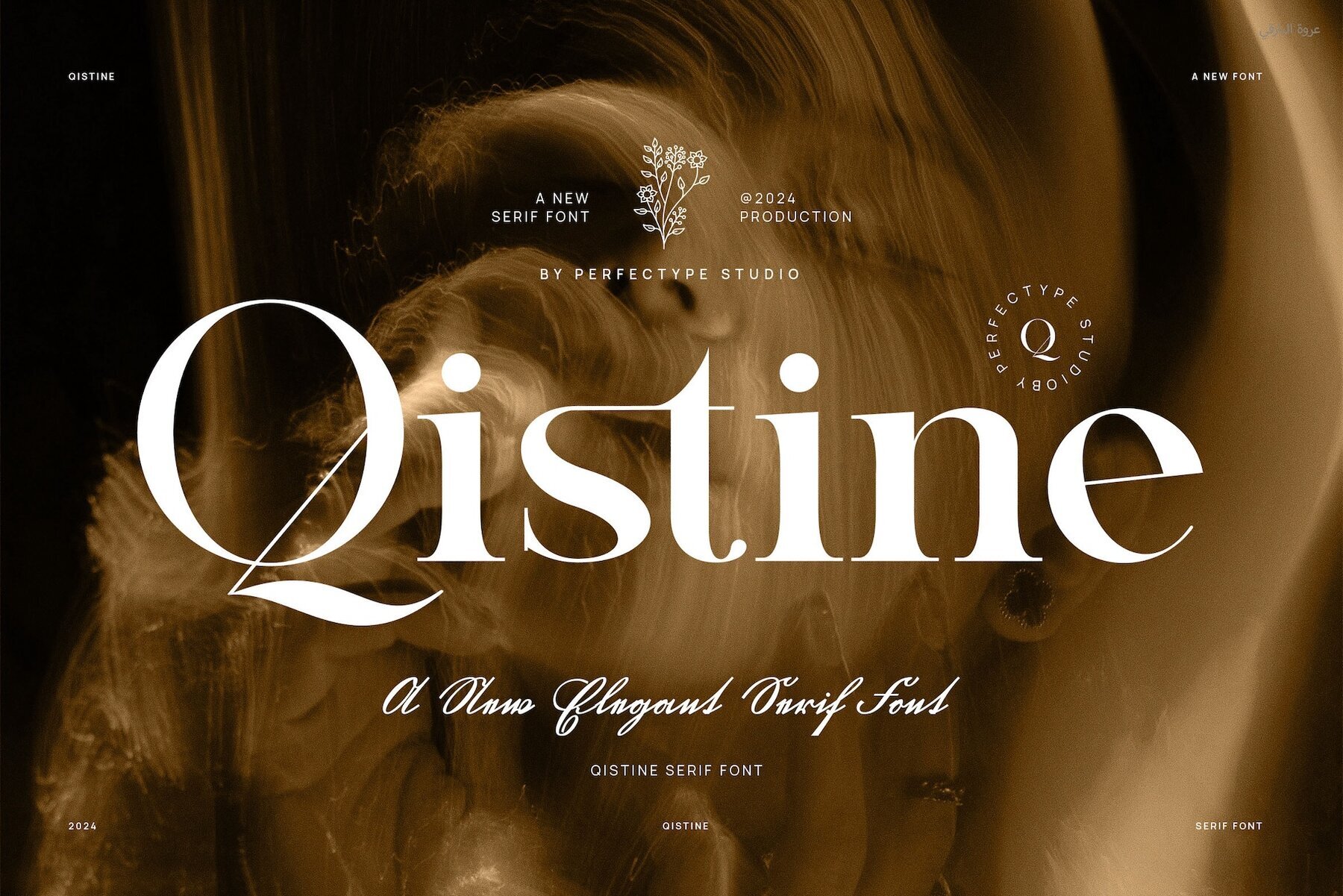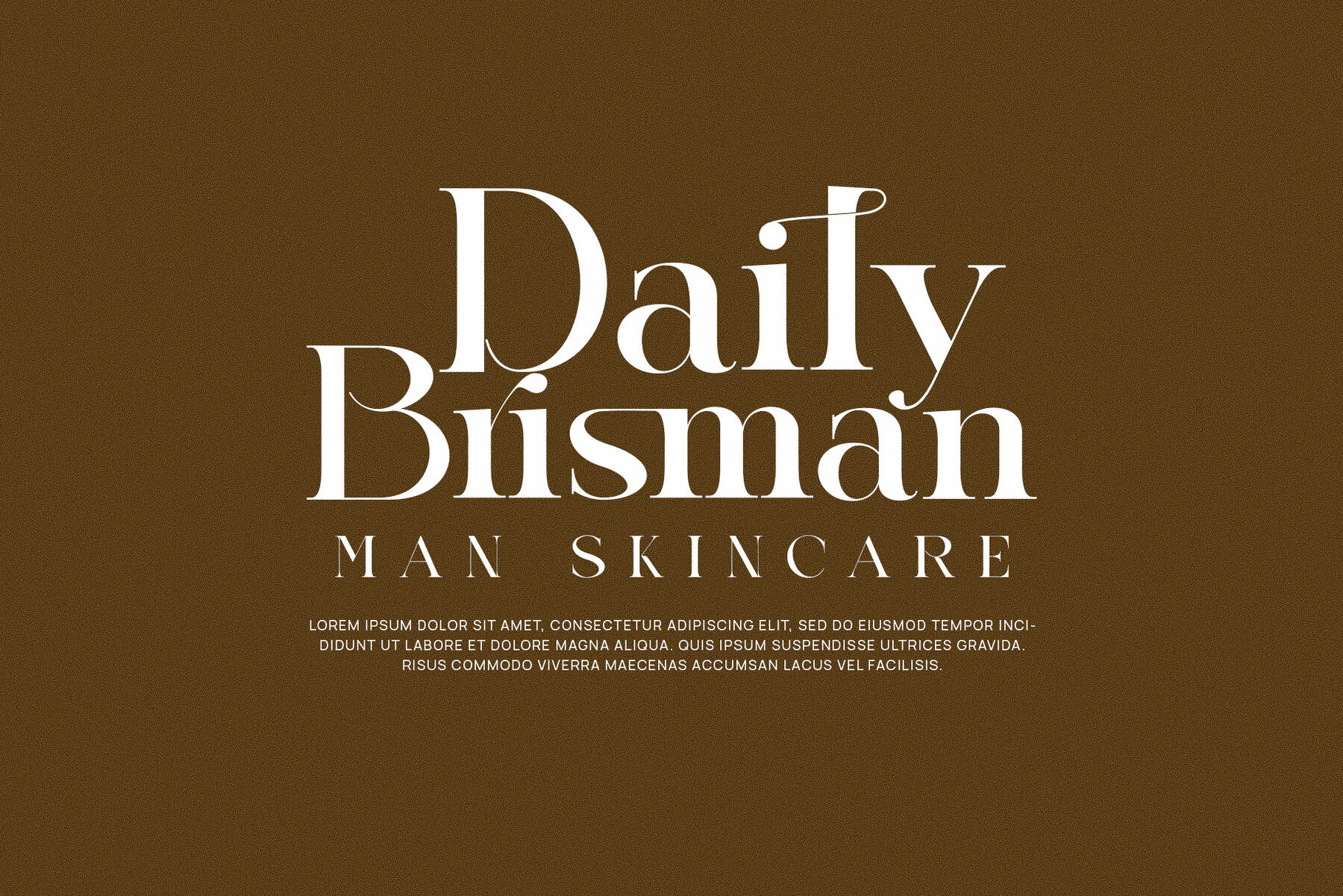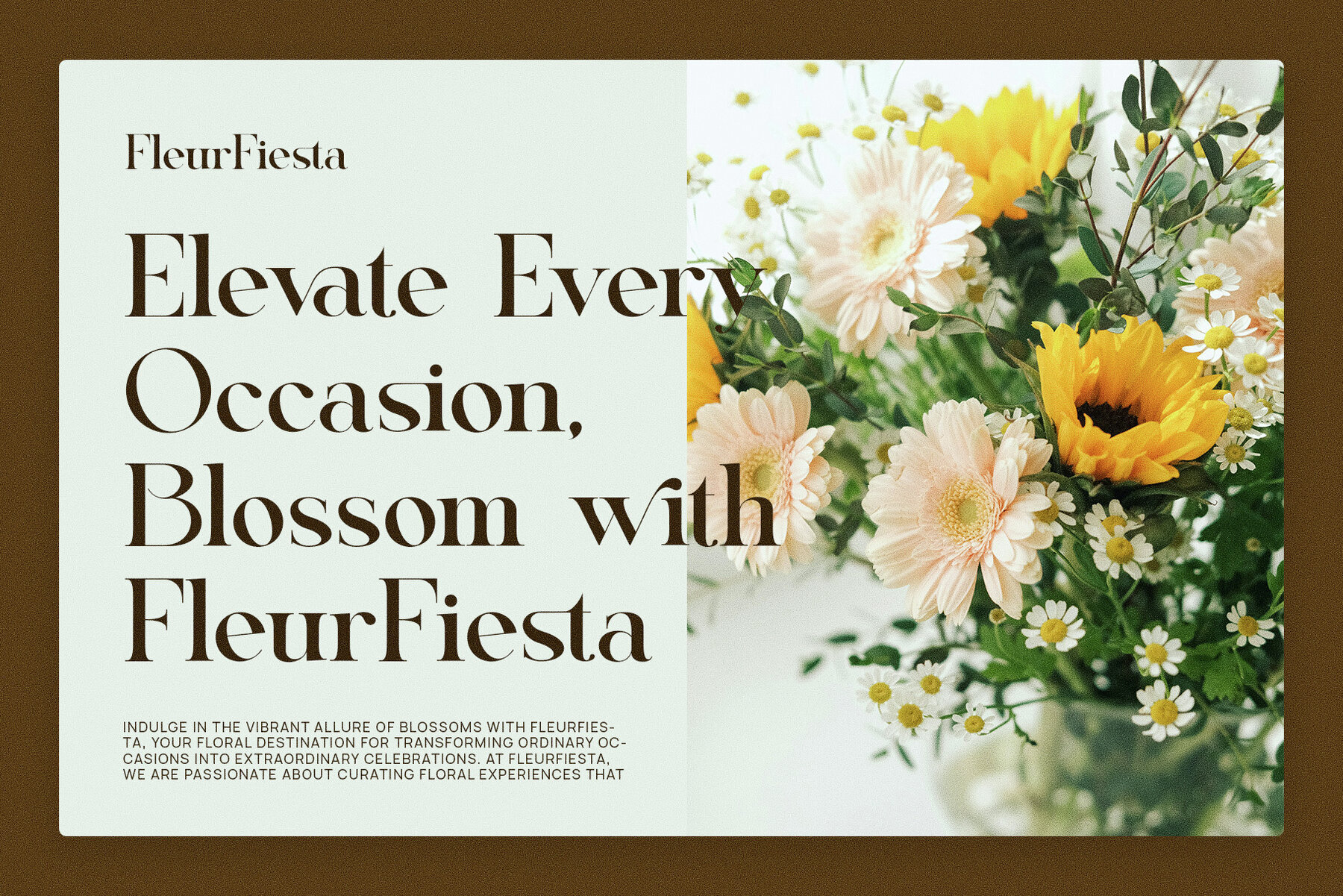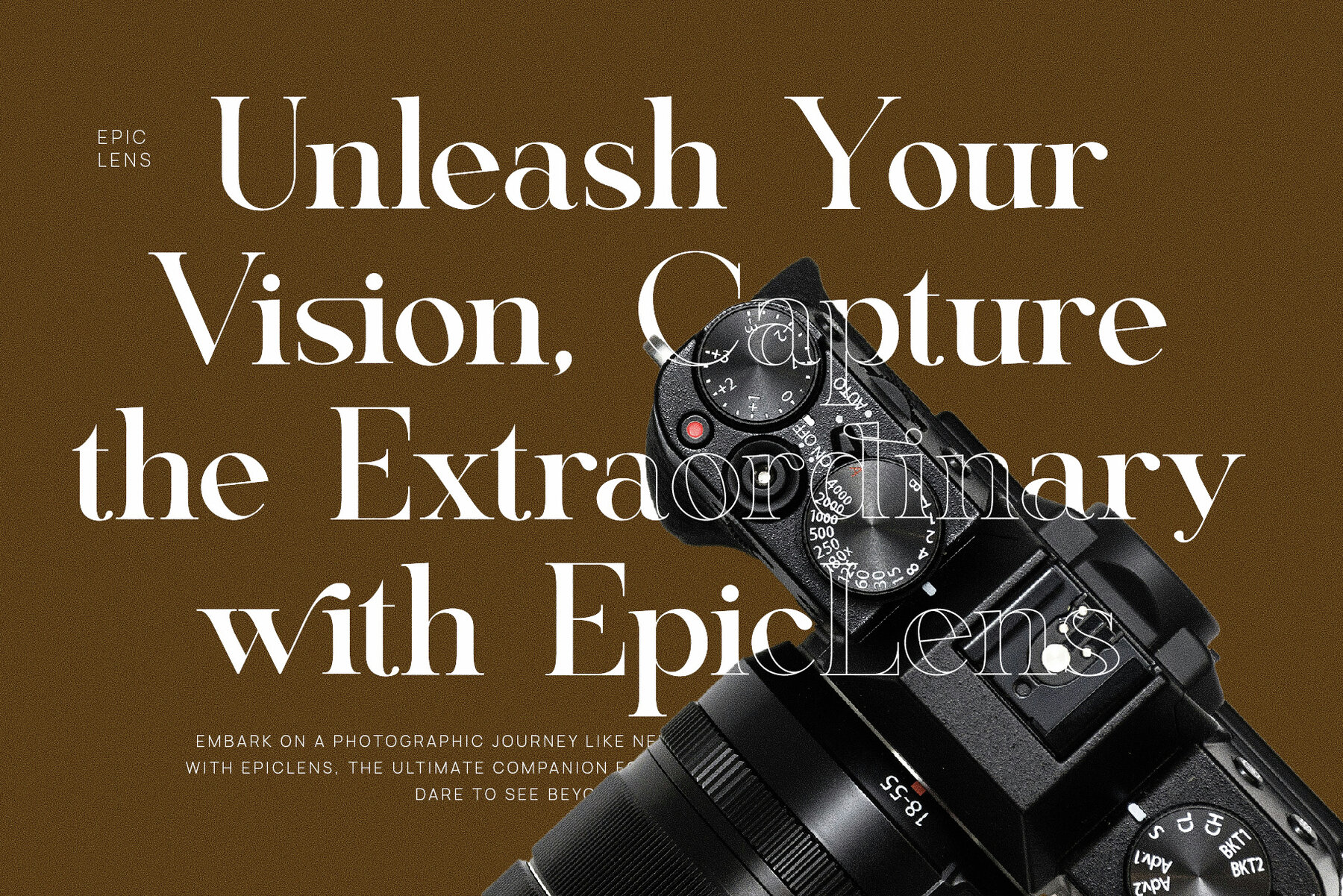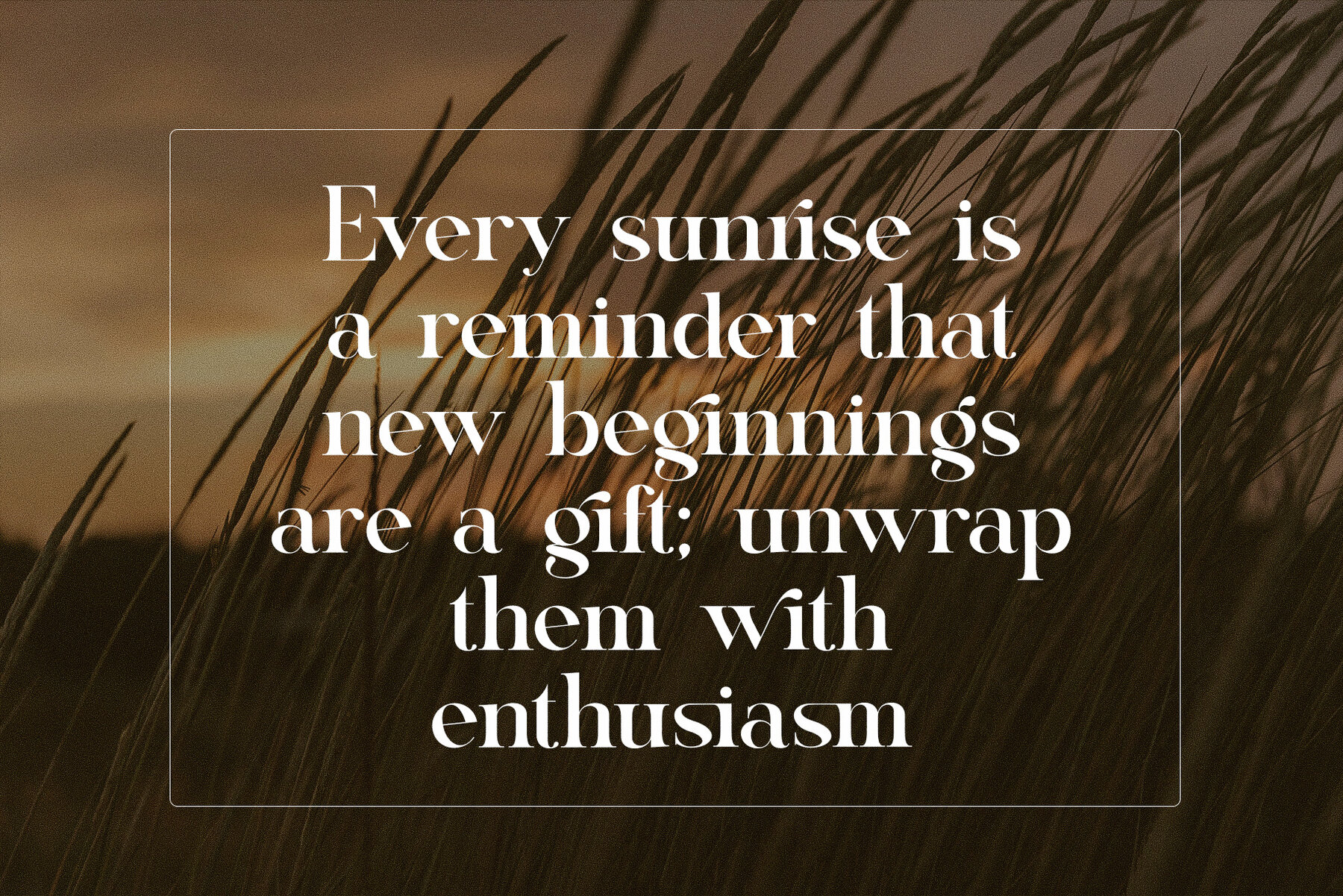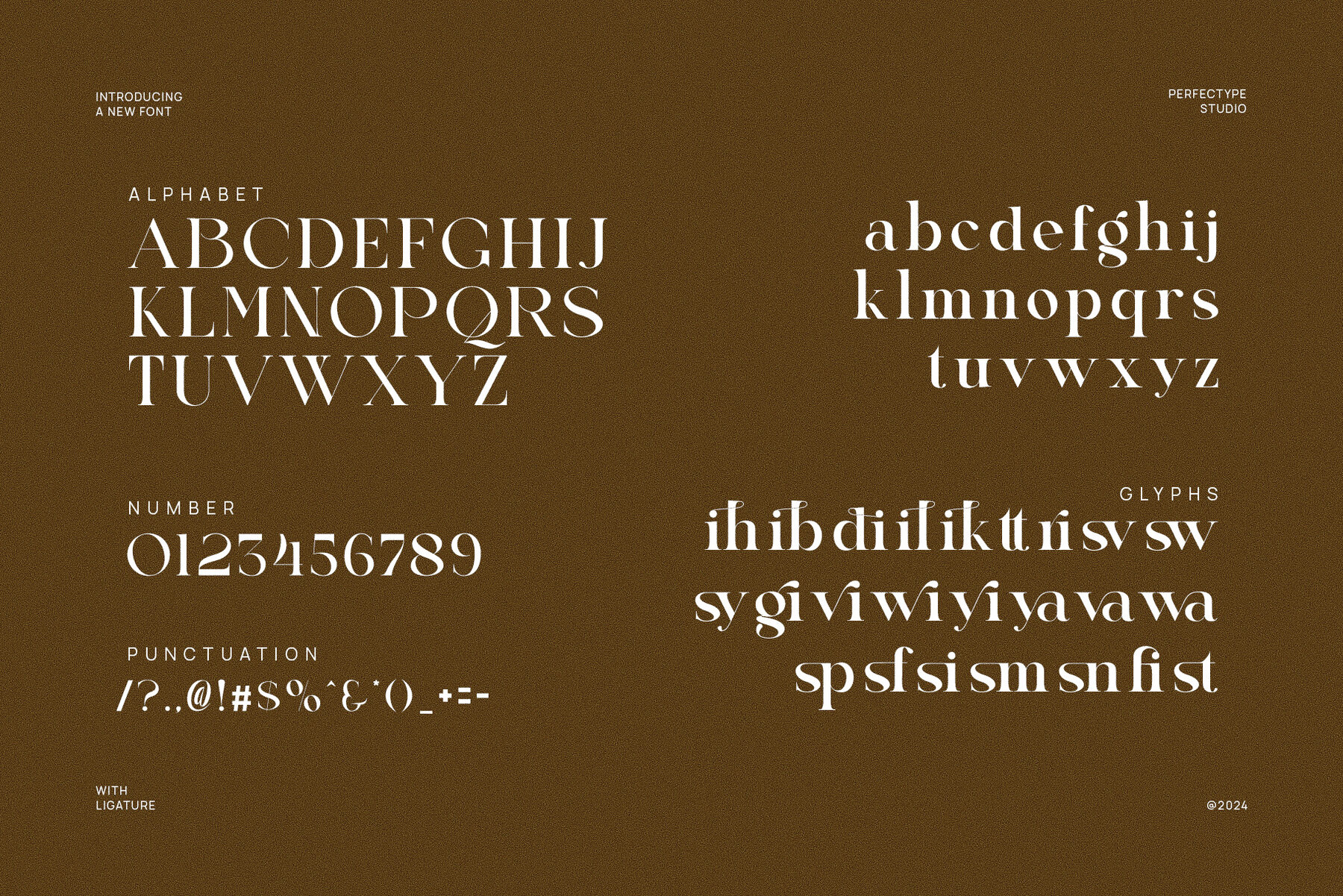
Qistine Font
Qistine
Qistine Elegant Serif Font seamlessly blends modern aesthetics with classic charm, presenting a typeface that exudes sophistication and timeless appeal. Characterized by its refined letterforms and delicate serifs, Qistine offers a versatile choice for a variety of design endeavors. Its unique shapes, combined with intricately crafted ligatures and alternate characters, provide a diverse range of customization, ensuring each project is distinctively original.
Ideal for high-end branding, Qistine excels in crafting memorable logos and brand identities. Whether applied to luxurious product packaging, chic boutique branding, or high-fashion logos, this font imparts a touch of class and refinement. Its versatility in both commanding headlines and detailed smaller text makes it an optimal choice for websites, magazines, layouts, advertisements, and more.
An excellent choice for industries like fashion, food, lifestyle, and boutique brands, Qistine balances modern sophistication with timeless elegance. Its graceful curves and meticulous attention to detail convey quality and refinement. With its beautiful ligatures, alternative characters, and versatile structure, Qistine Elegant Serif Font adds luxury and style to any creative project.